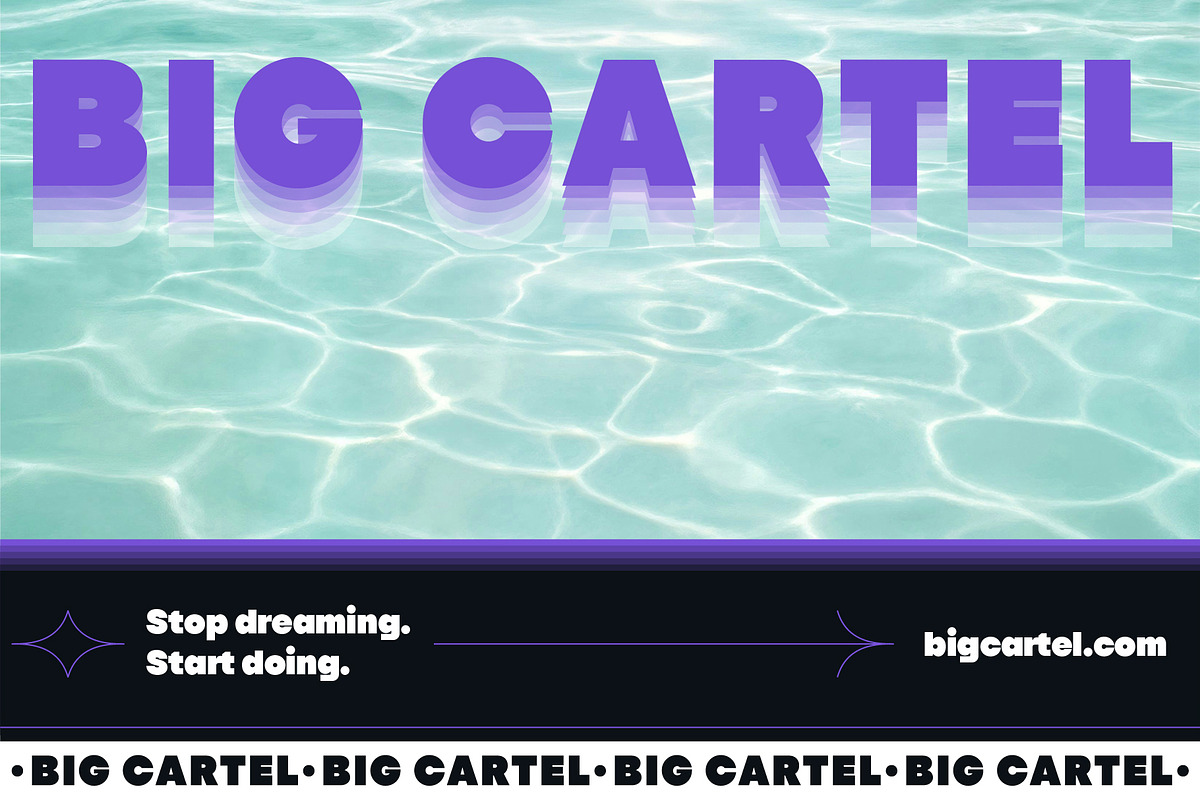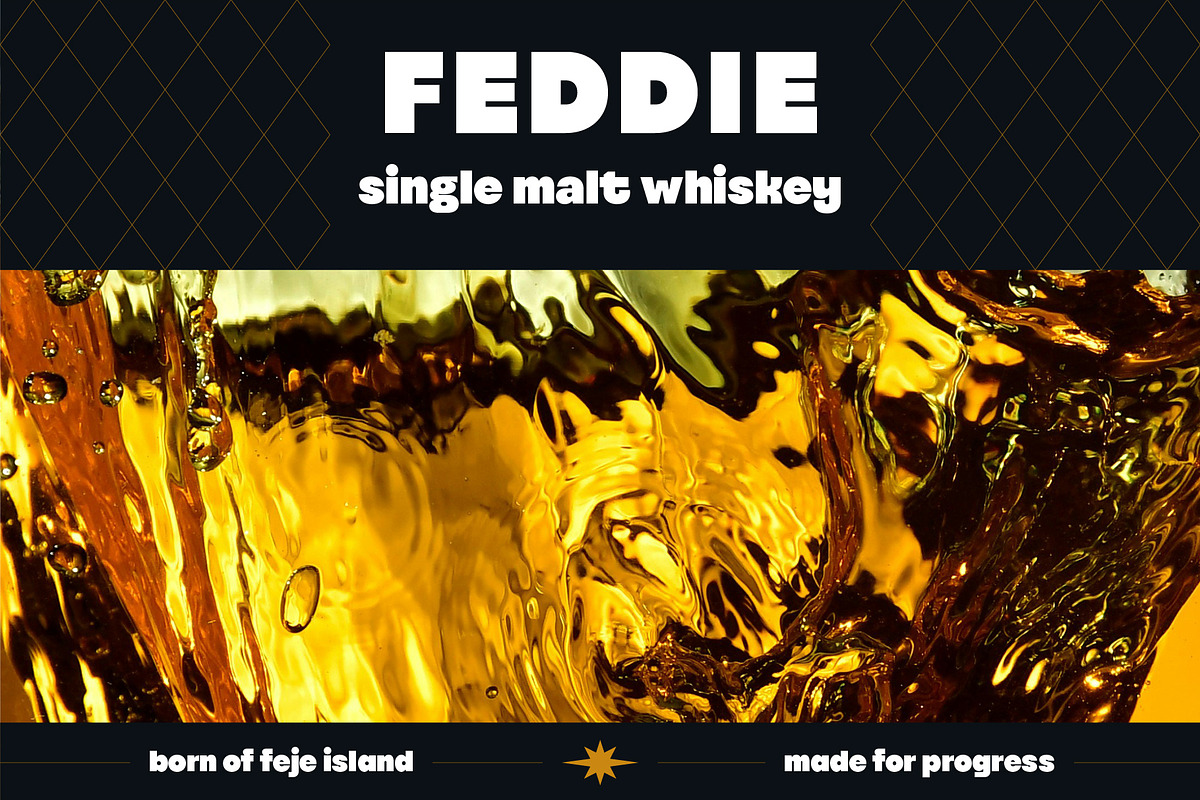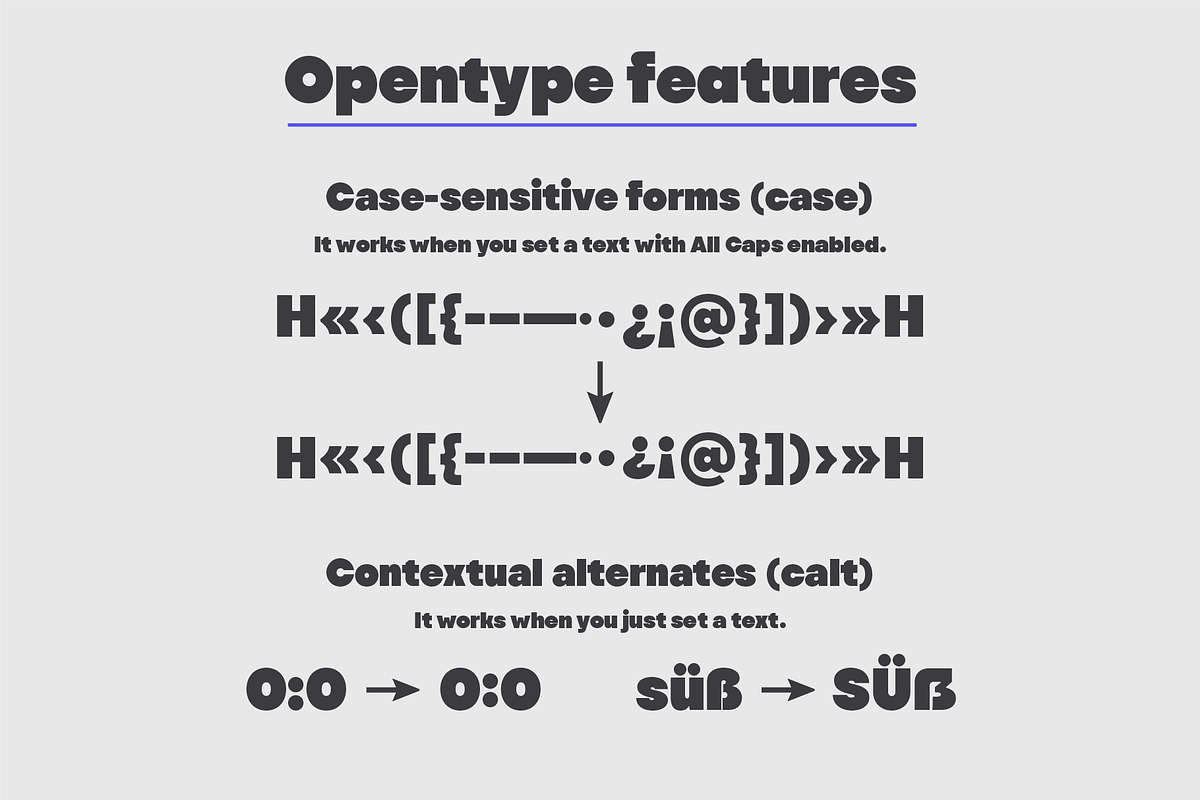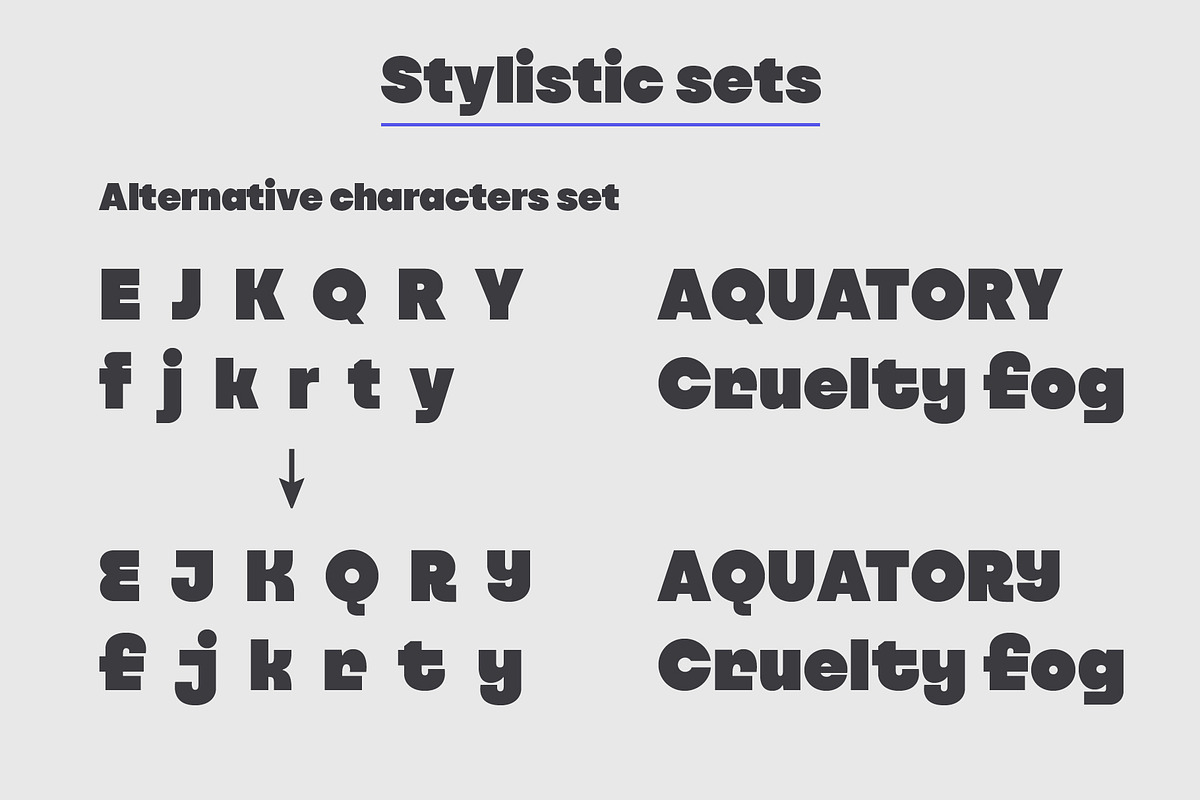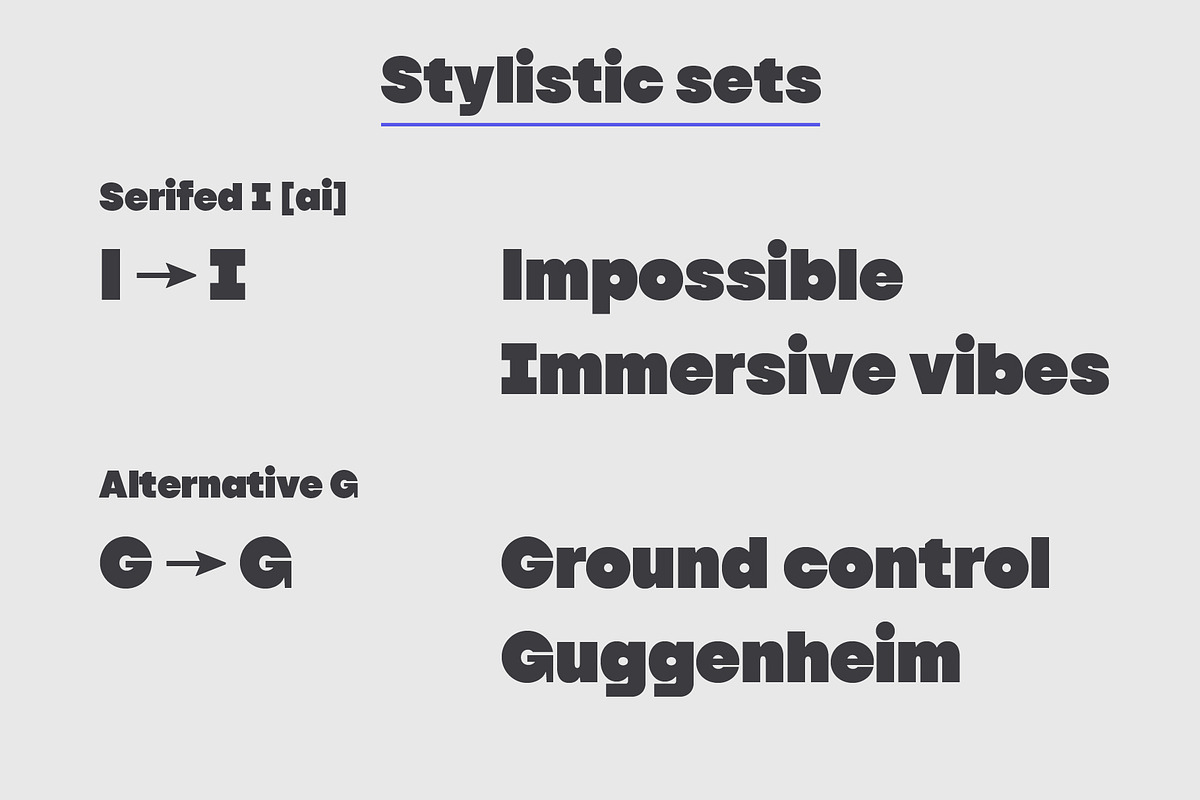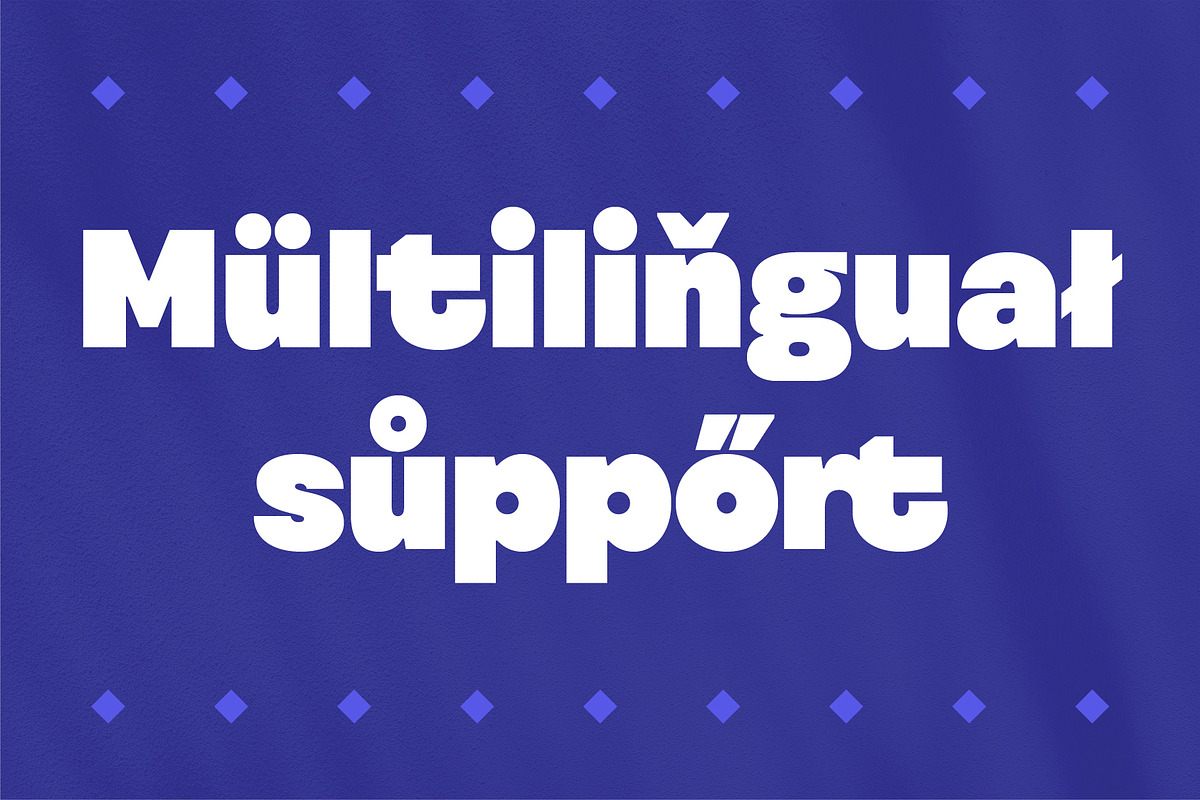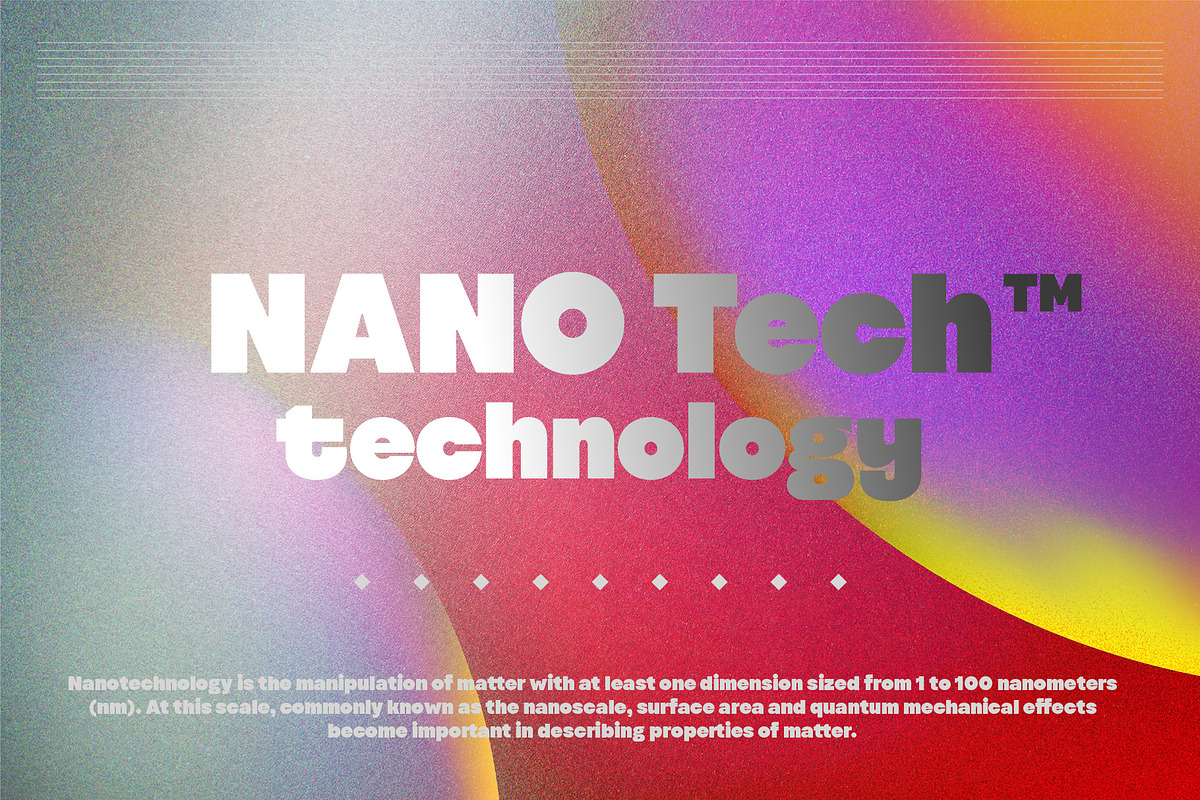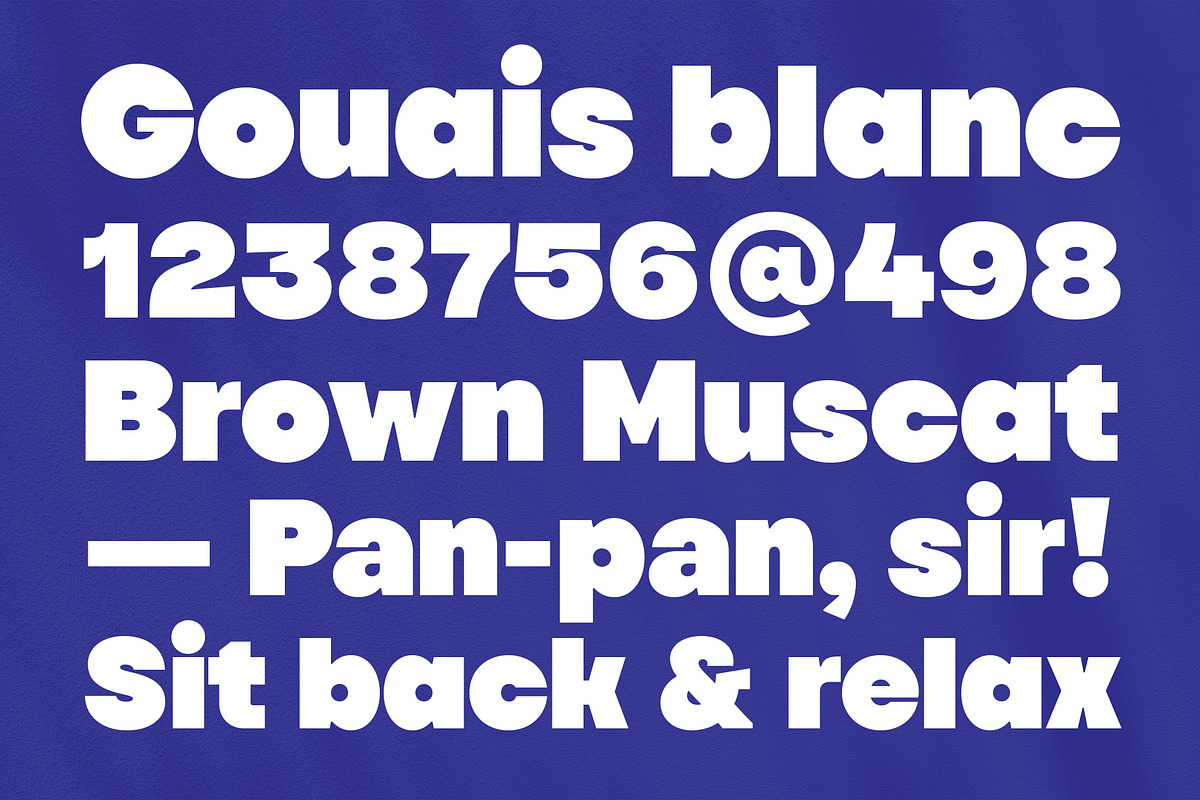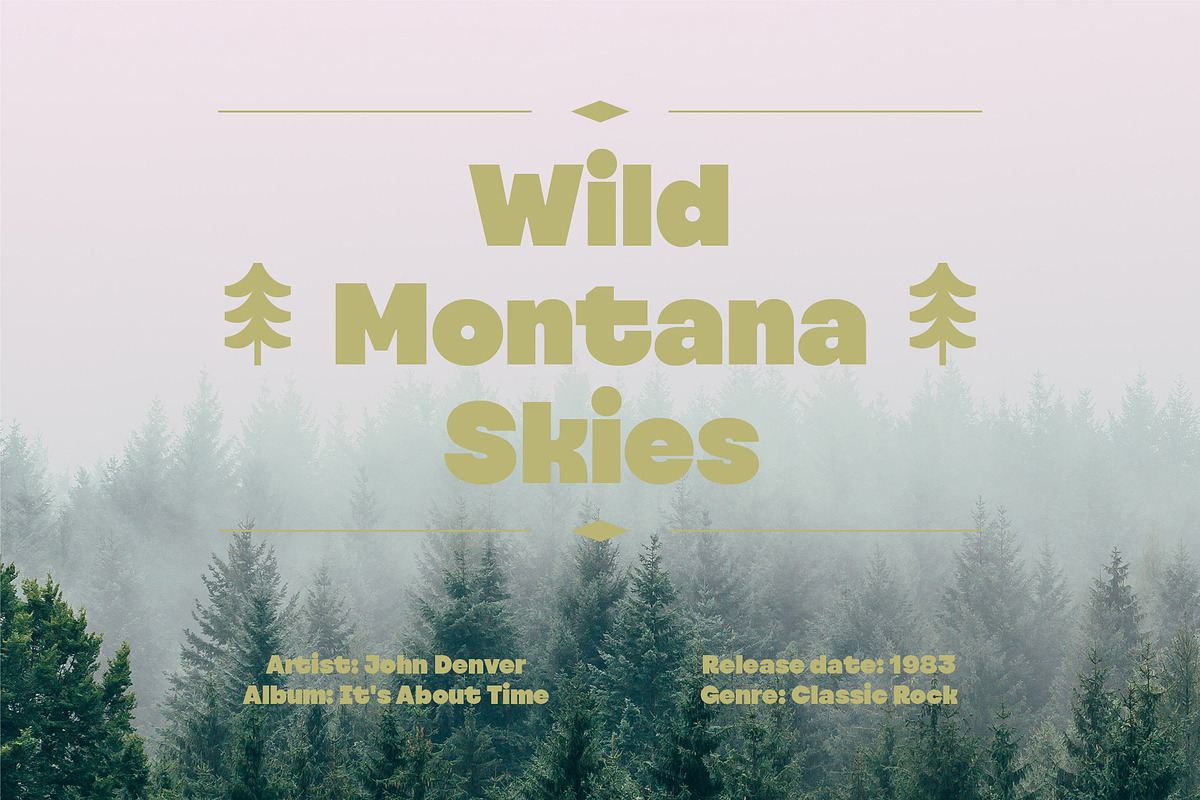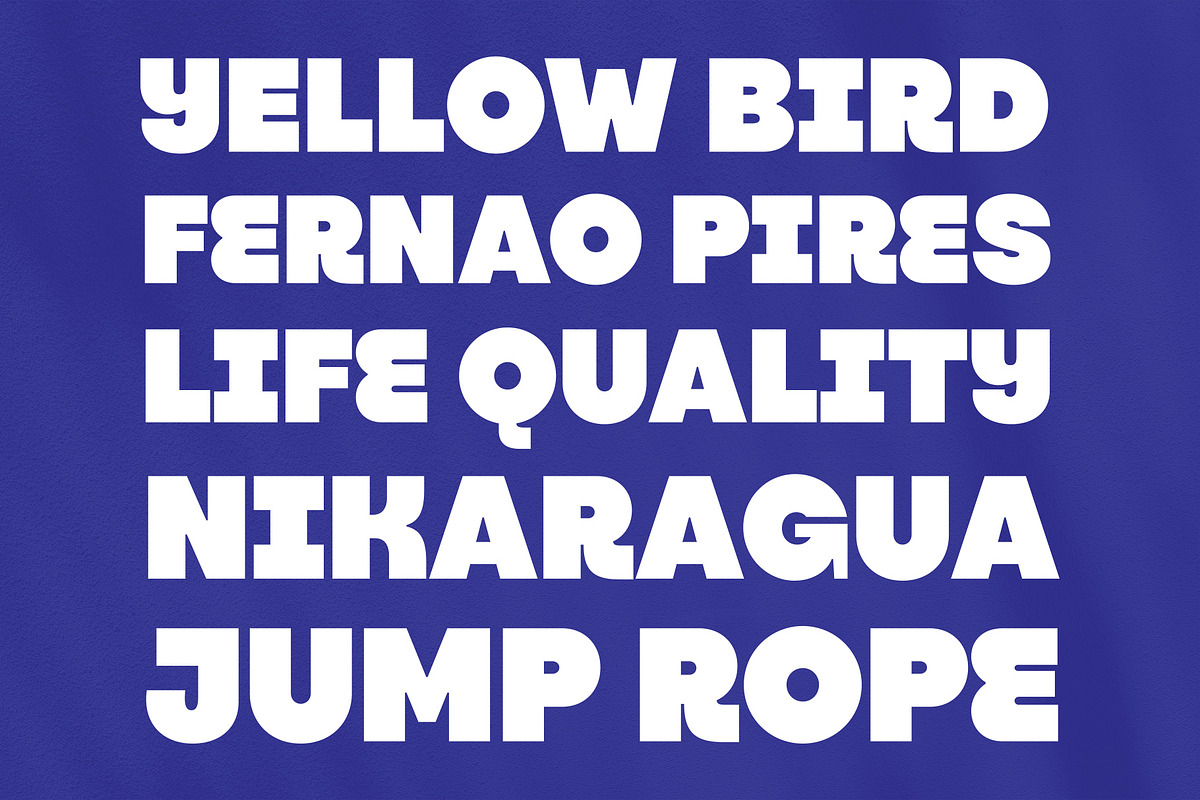
YNF Romero | Display sans serif
Hello! New release is here! YNF Romero. Geometric bold dude for headlines, branding, short slogans and texts. All these things about it. You can use wide range of ligatures and alternates. This helps greatly diversify design and makes any text visually interesting.
- Uppercase and lowercase letters
- Stylistic alternates
- Wide range of ligatures
- Opentype features and localized forms